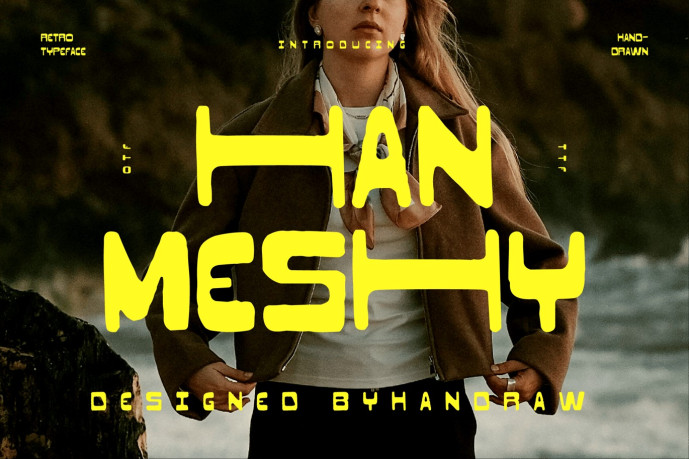
Meshy Font
Designer: Handraw
Meshy Font is a charming retro-inspired hand-drawn font that brings a playful yet nostalgic vibe to your designs. With its quirky lines and warm, imperfect strokes, Meshy evokes the authenticity of vintage sign painting and mid-century design. Perfect for posters, logos, invitations, packaging, and creative branding, this font adds a personal, artistic touch while maintaining readability.